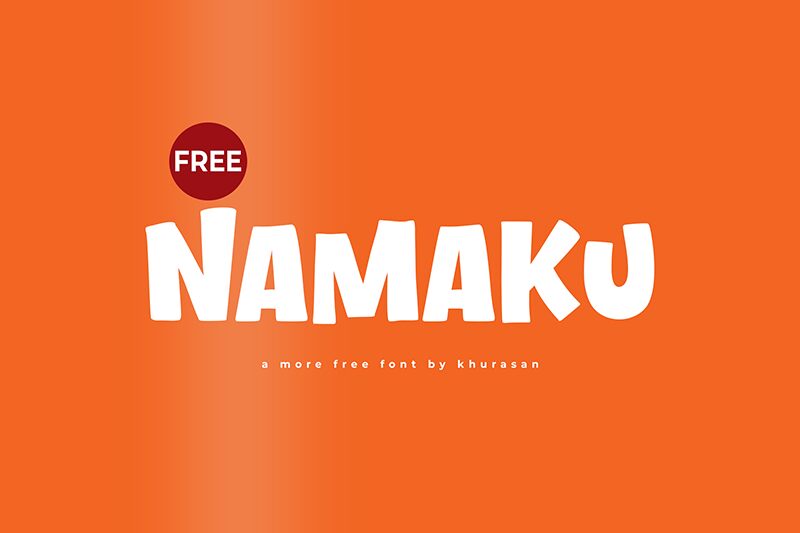
Namaku
Namaku font by Khurasan is a cartoon display font for expressive texts with light-hearted vibes. The bold font exudes charisma and captures attention effortlessly, allowing for the creation of impactful messages that cannot go unnoticed. It all comes in a retro-inspired style with high-impact elements achieved through the inclusion of specific visual details.